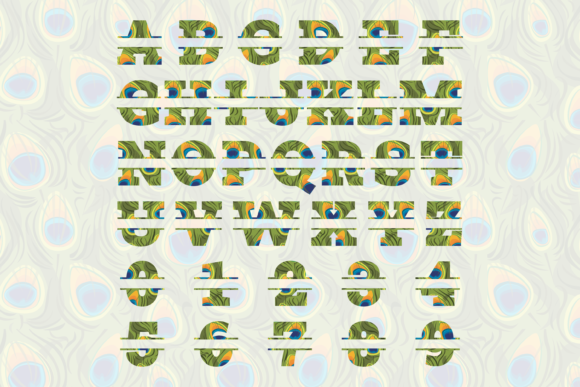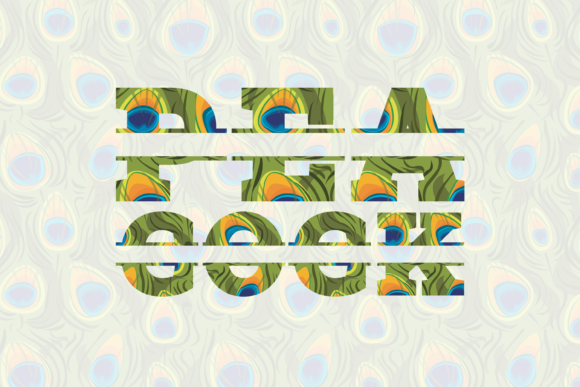
Introduction to Peacock Split Font
Peacock Split is an incredibly cool font containing cute peacock things.
Whether you use it for custom designs, DIY crafts, or just any creation that requires a lovely touch, this font will be an amazing choice Note.
Key Features of Peacock Split Font
Why Choose Peacock Split Font?
Peacock Split Font offers exceptional quality and versatility, making it a valuable addition to your design toolkit. Whether you’re creating for personal projects or commercial use, Peacock Split Font delivers professional results.